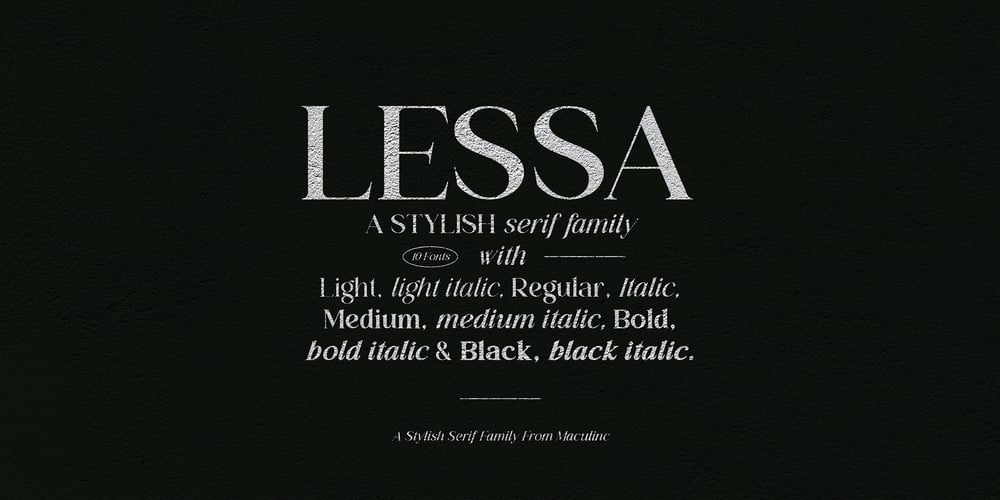
Lessa Serif Font Font Family was designed by Lukmanul Khikmatullah and published by Maculinc. Lessa Serif Font contains 10 styles and family package options. Lessa is an elegant classic serif font family consisting of simple style serif fonts with a vintage look, with appropriate cursive calligraphy italics based on a number of humanist italic scripts, perfect for creating templates, posters, brochures, logos and more.This font consists of upright and italic fonts (10 in total) all of which have the same number in each letter, Lessa is equipped with multi-languages and is supported by various languages from various countries.10 FontsMultilingual SupportIf you are looking for a custom font or web license, and for support, feel free to contact us at maculinc@gmail.comThank you for visiting us and don’t forget to follow us :Behance ( https://www.behance.net/maculinc )Dribbble ( https://dribbble.com/Maculinc )Instagram ( https://www.instagram.com/maculinc/ )